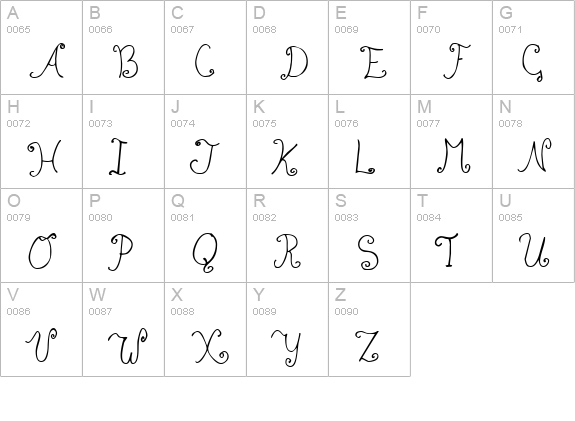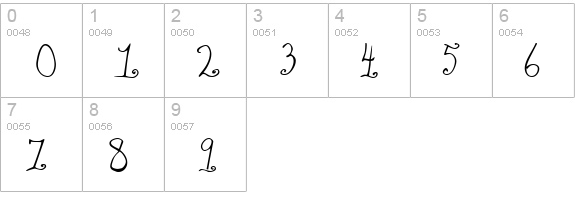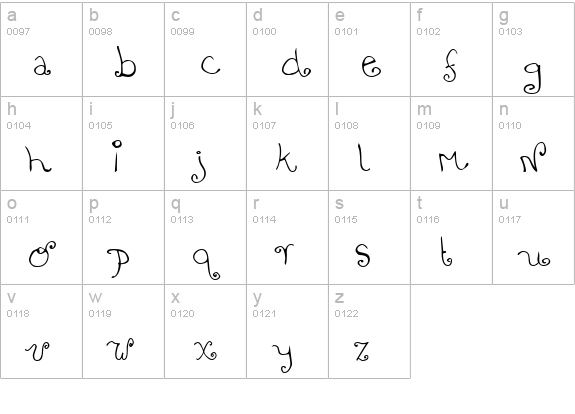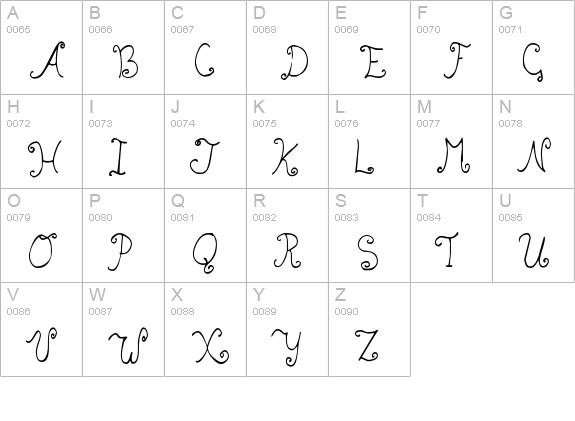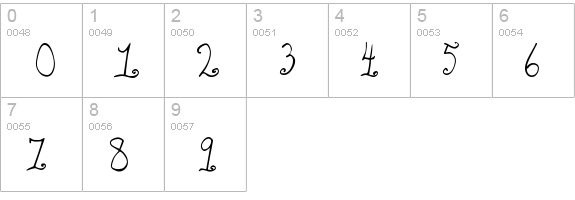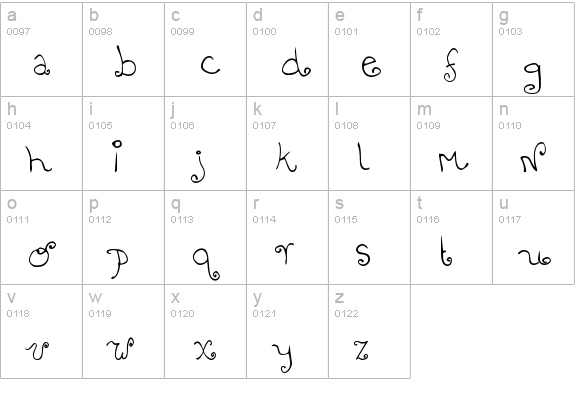
Introducing Bizzy Bee font, a whimsical and charming typeface that exudes a playful and friendly vibe. This unique font is perfect for adding a touch of fun to any project, whether it's a logo, poster, or greeting card. With its quirky and cheerful letterforms, Bizzy Bee is sure to capture attention and bring a smile to your audience's face. What's even better is that Bizzy Bee font is available for free download at FontsMarket.com. Yes, you read that right - you can get your hands on this delightful font without spending a dime! So why wait? Add a dash of creativity to your designs with Bizzy Bee font today.